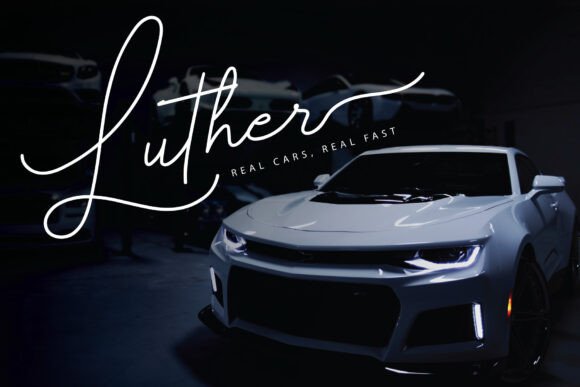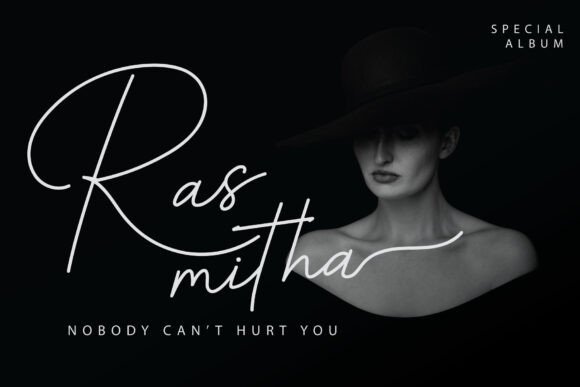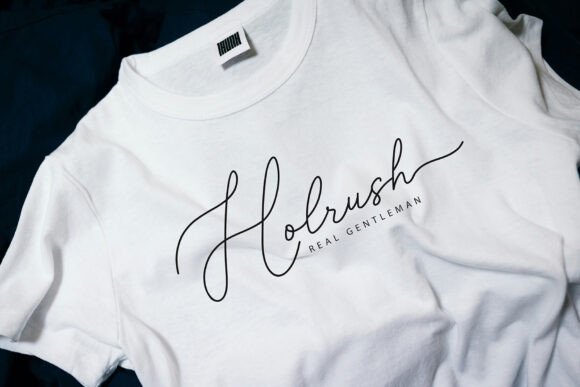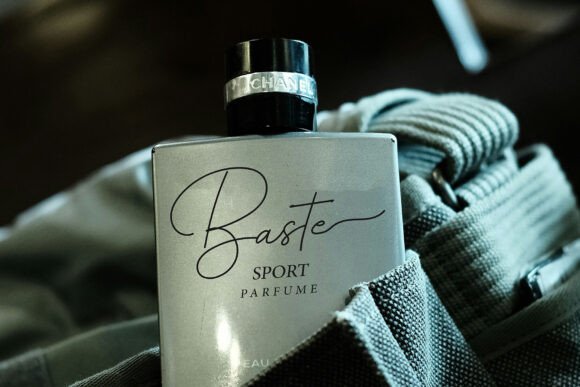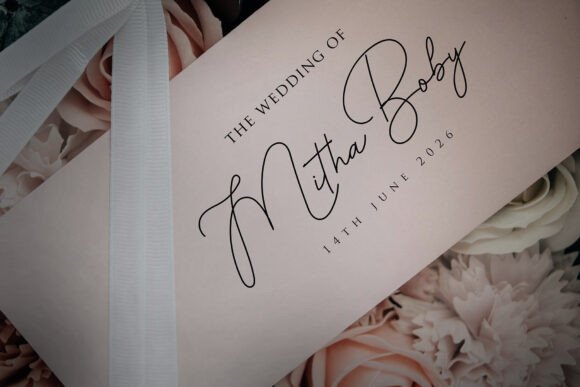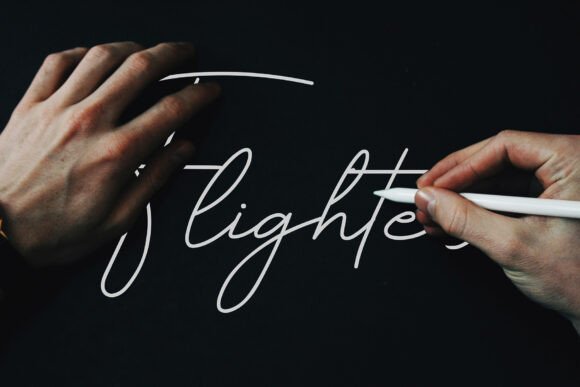
The Quest for the Perfect Font: Discovering Better Days Script
I’ll never forget the design project that led me to Better Days Script. I was working on a branding project for a luxury wedding planner, and I needed a font that exuded elegance, sophistication, and a touch of whimsy. I scoured font libraries, but nothing seemed quite right – until I stumbled upon Better Days Script. It was love at first sight! 💕
An Honest Review of Better Days Script
- ✨ Fashionable and sophisticated: Better Days Script has a unique, high-end feel that’s perfect for luxury brands and special events.
- ✅ Elegant inky flow: The font’s subtle imperfections and varying line widths give it a beautiful, hand-written feel.
- 💫 Versatile: Better Days Script is suitable for a wide range of design applications, from watermarks and social media posts to logos, branding, and product packaging.
While Better Days Script is an amazing font, it’s not perfect. Here are a few things to keep in mind:
- ⚠️ Legibility at small sizes: Like many script fonts, Better Days Script can become tricky to read at very small sizes. Make sure to test it at different sizes to ensure it works for your design.
- 🤔 Limited use in body text: While Better Days Script is stunning as a display font or for short paragraphs, it’s not ideal for lengthy body text. Stick to using it for headings, titles, or short captions.
- Experiment with OpenType features like ligatures, stylistic alternates, and swashes to add visual interest to your design.
- Explore the glyphs panel to access alternative characters, ligatures, and swashes.
The Designer Inspiration Behind Better Days Script
While the true story behind Better Days Script remains a mystery, it’s easy to imagine that the designer was inspired by the world of luxury fashion and fine art. Perhaps they spent hours pouring over vintage typography books, searching for the perfect blend of elegance and whimsy. Whatever the inspiration, the result is a truly stunning font that’s sure to elevate any design.
| Font Name | Better Days Font |
| Author | Syauqi Studio |
Q: What is the best way to use Better Days Script in a logo design?
A: Better Days Script is perfect for logo design, especially when paired with a simple, bold shape or icon. Experiment with different font sizes, colors, and styles to create a unique look.
Q: Can I use Better Days Script for body text?
A: While Better Days Script is stunning as a display font, it’s not ideal for lengthy body text. Stick to using it for headings, titles, or short captions.
Q: Is Better Days Script suitable for digital use?
A: Absolutely! Better Days Script is optimized for digital use and looks great on screens. Just be sure to test it at different sizes to ensure it remains legible.